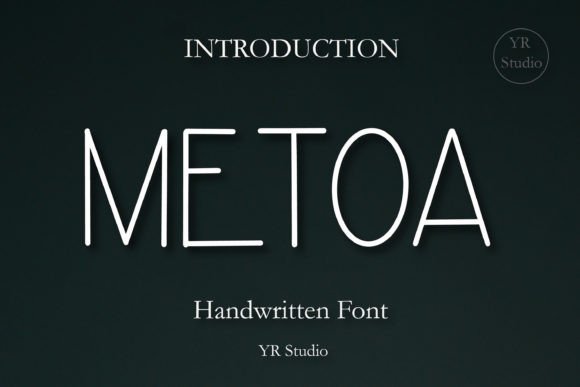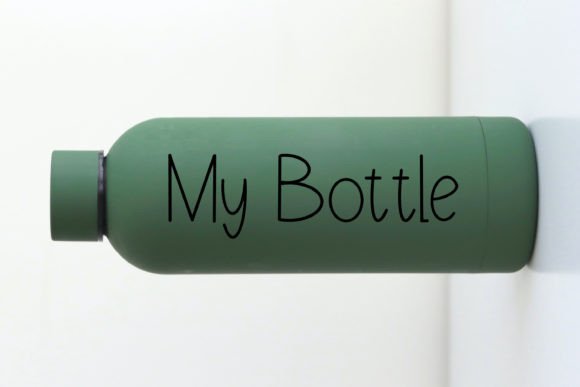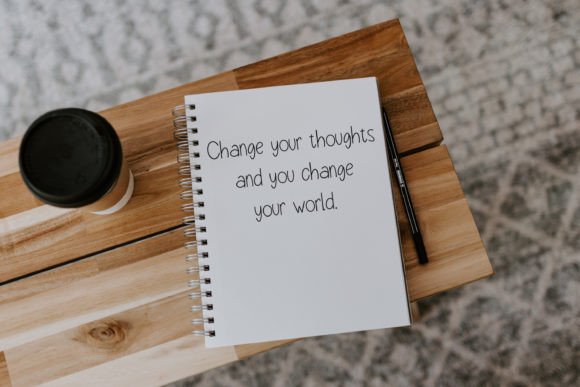
Metoa Font
A lot of single-line and hairline fonts are on the more formal side. But Metoa is here to bring a quirky and casual vibe with its playful characters.